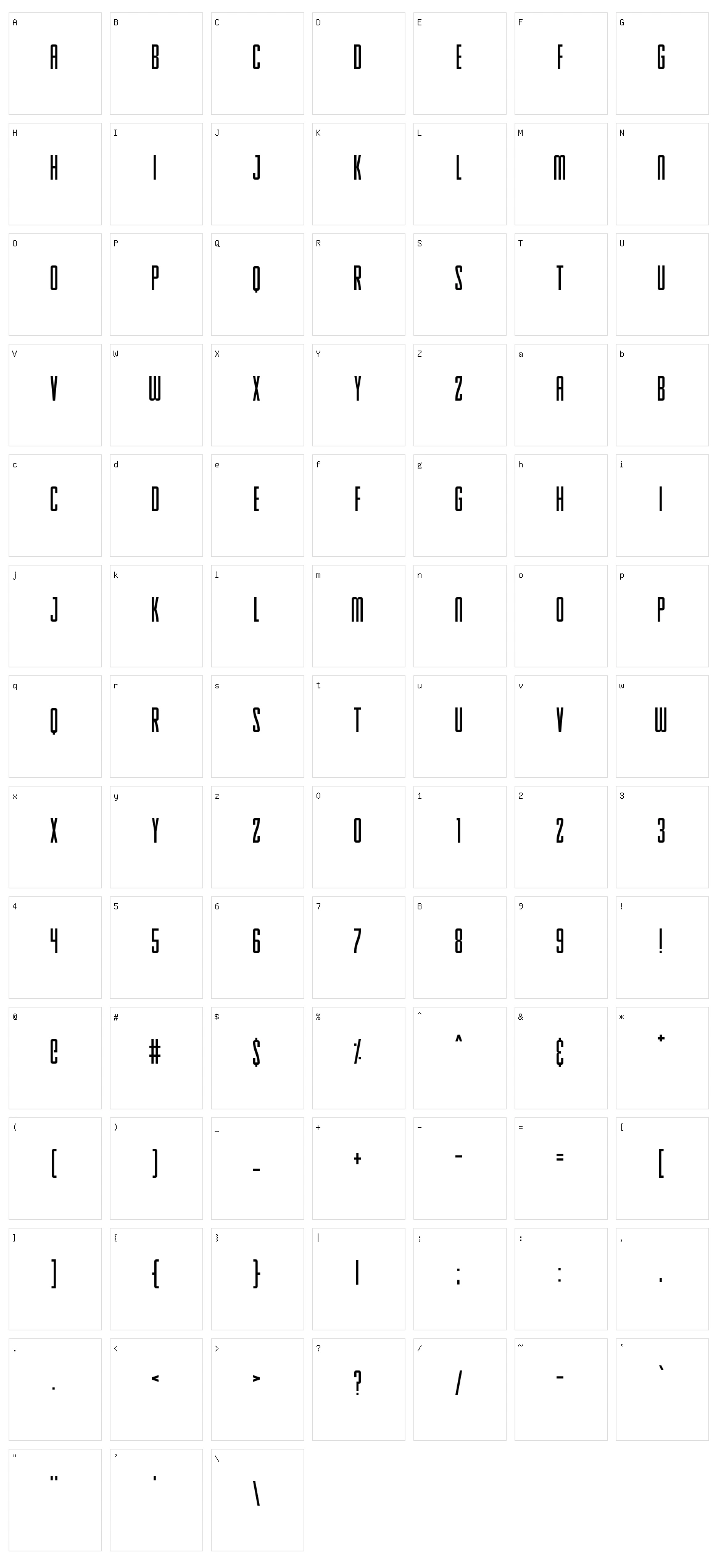
The free font Skinny Sunbeams is carefully designed by Hawtpixel, showcasing a thoughtful balance of creativity and usability and falls under the Sans serif font style. When you download the ZIP file, it contains only 48.55 KB of font files, making it lightweight and quick to download. Please review the license details below to understand permitted usage and distribution rights. If license information is not available, we recommend using this font for personal projects only or contacting the author directly for commercial usage permissions.